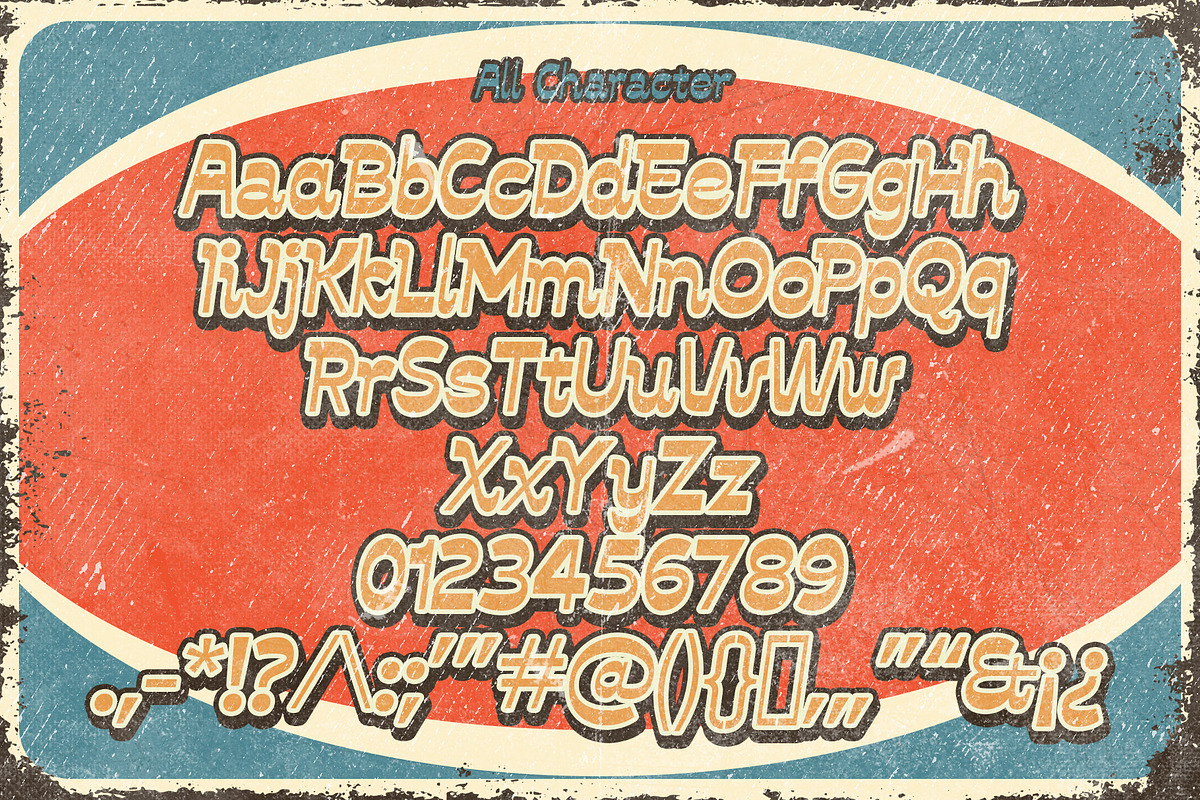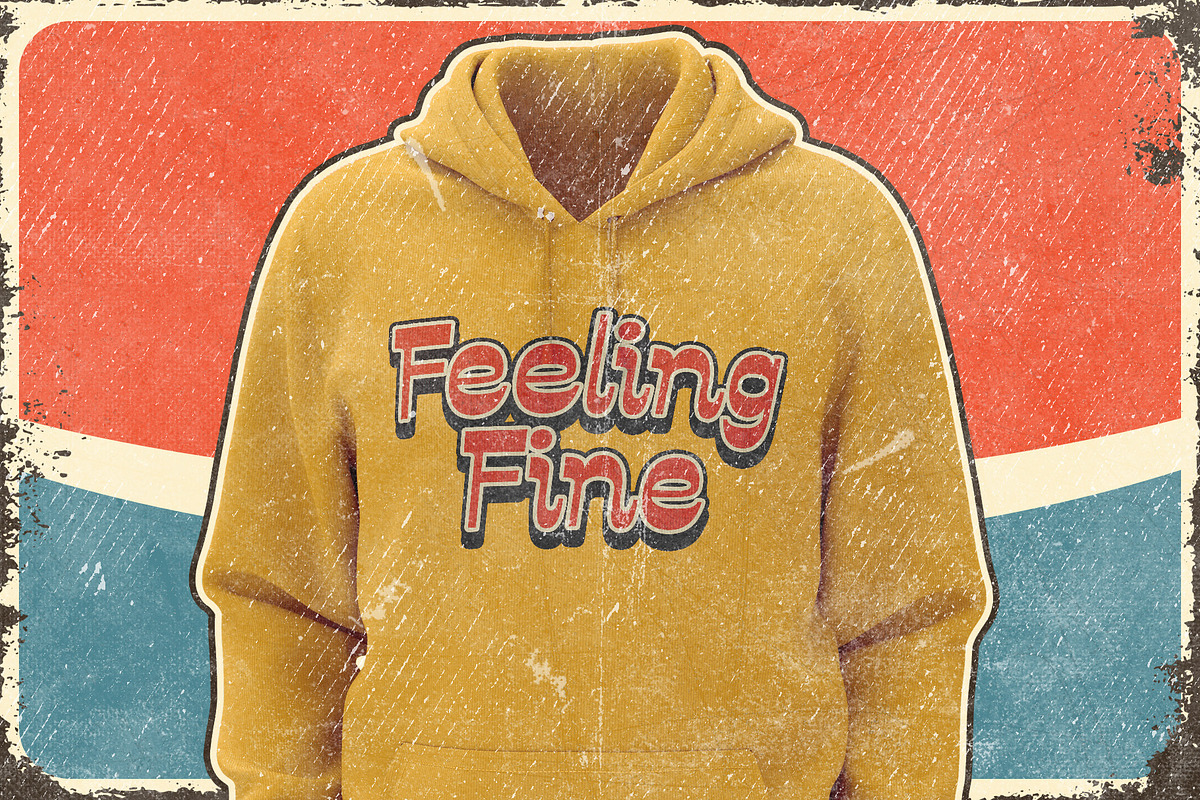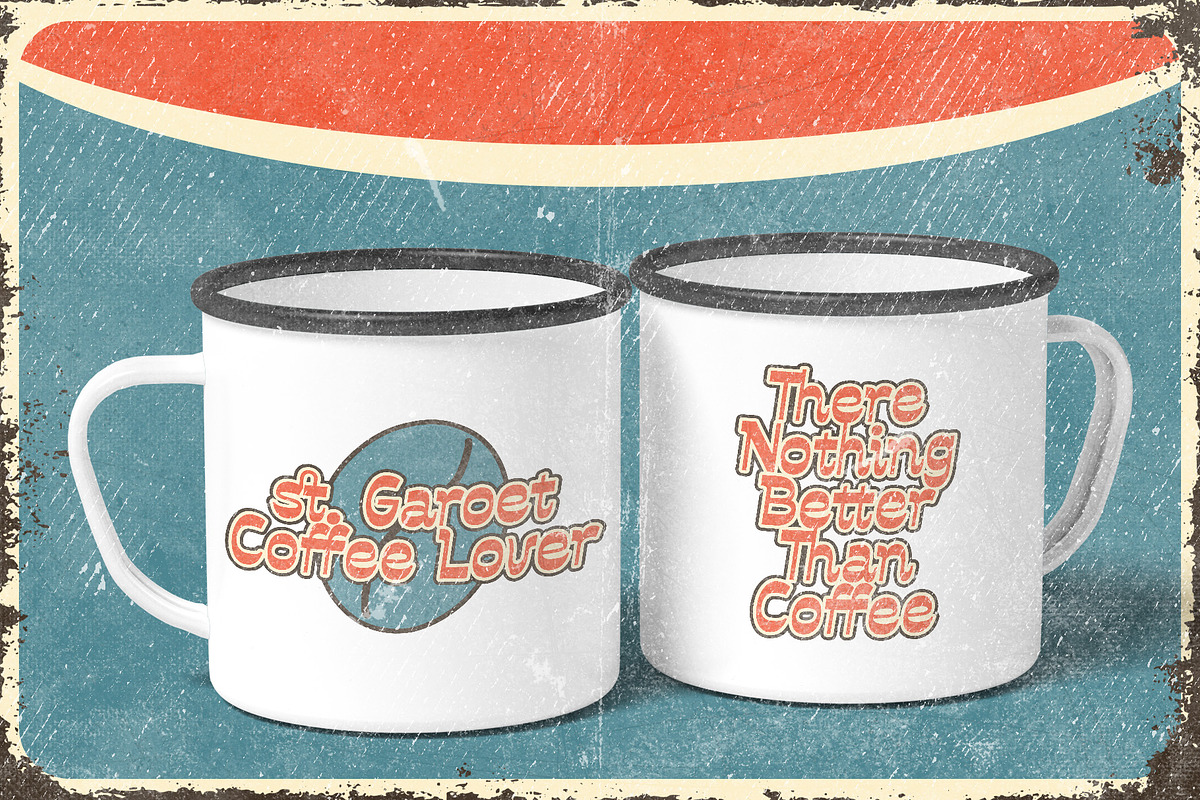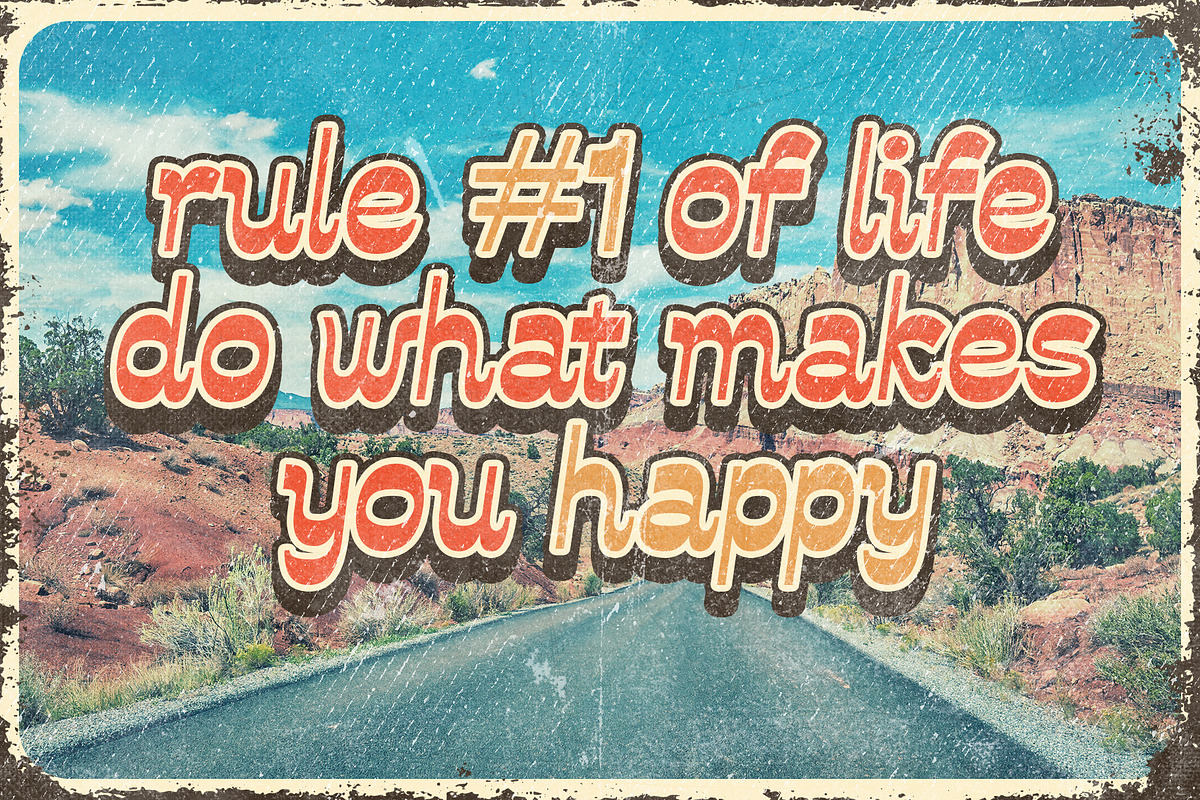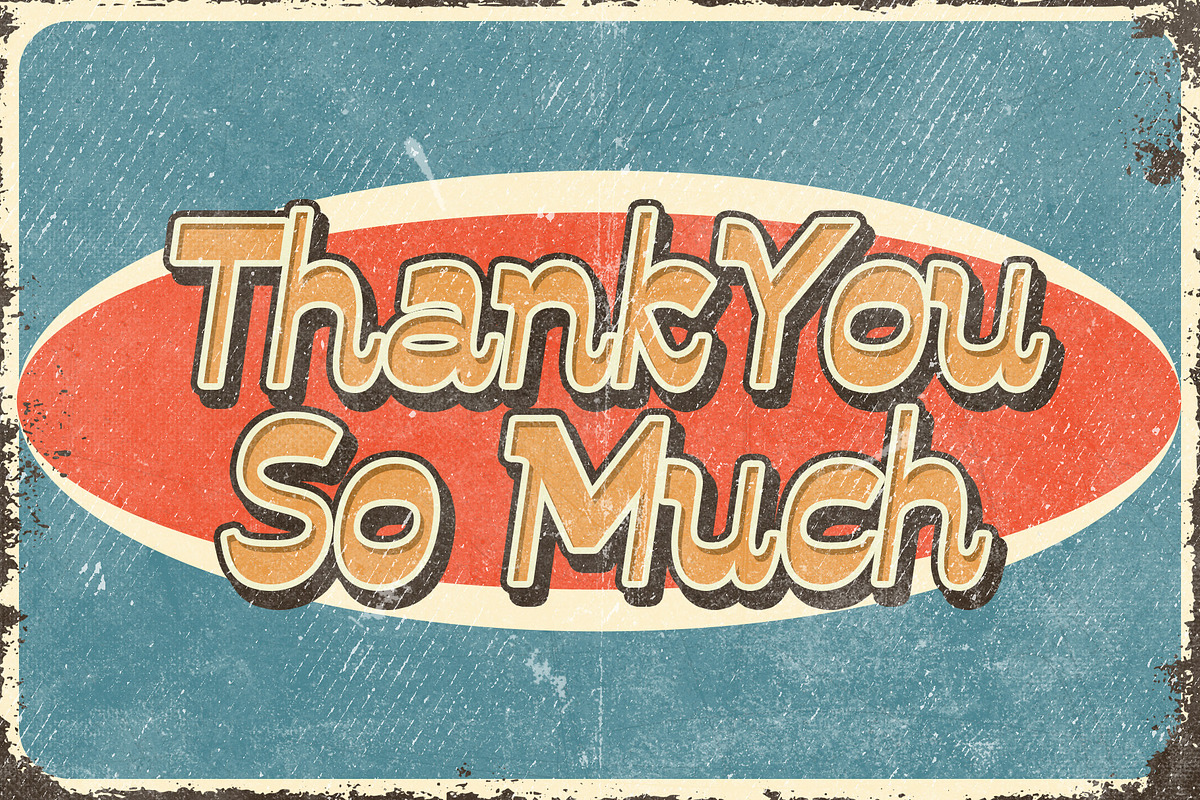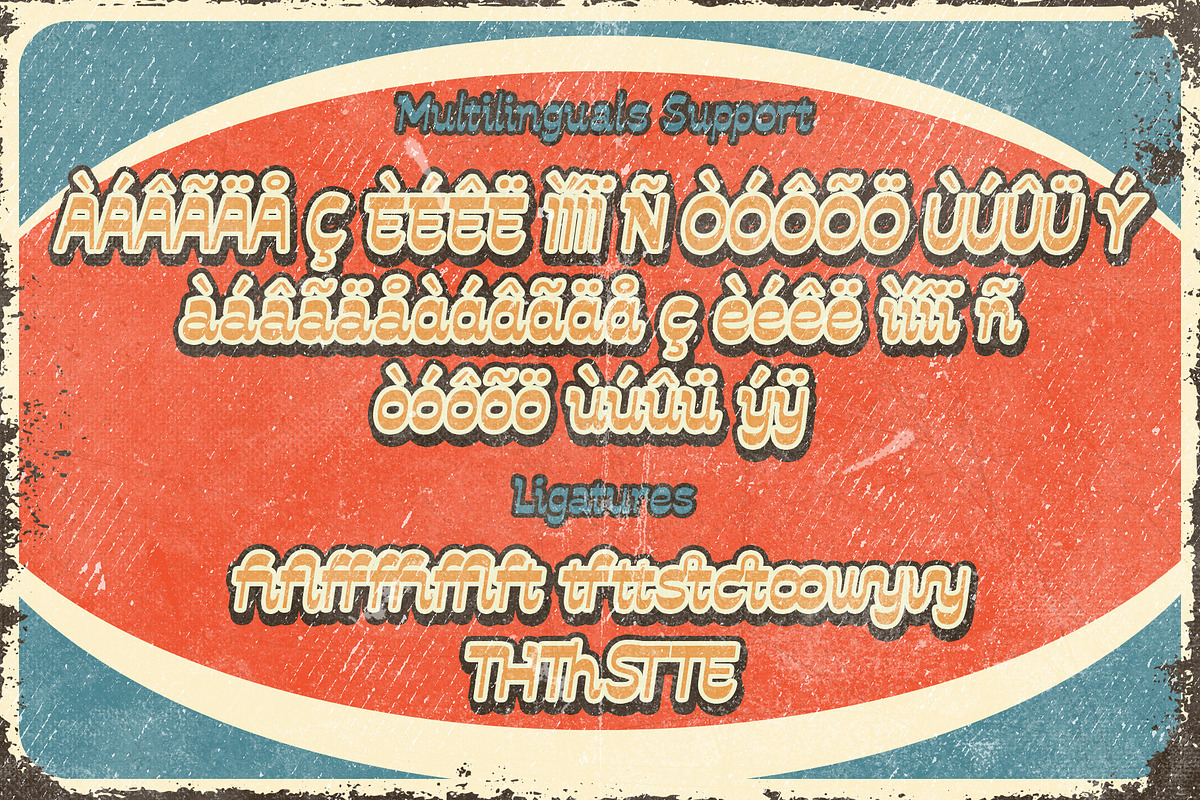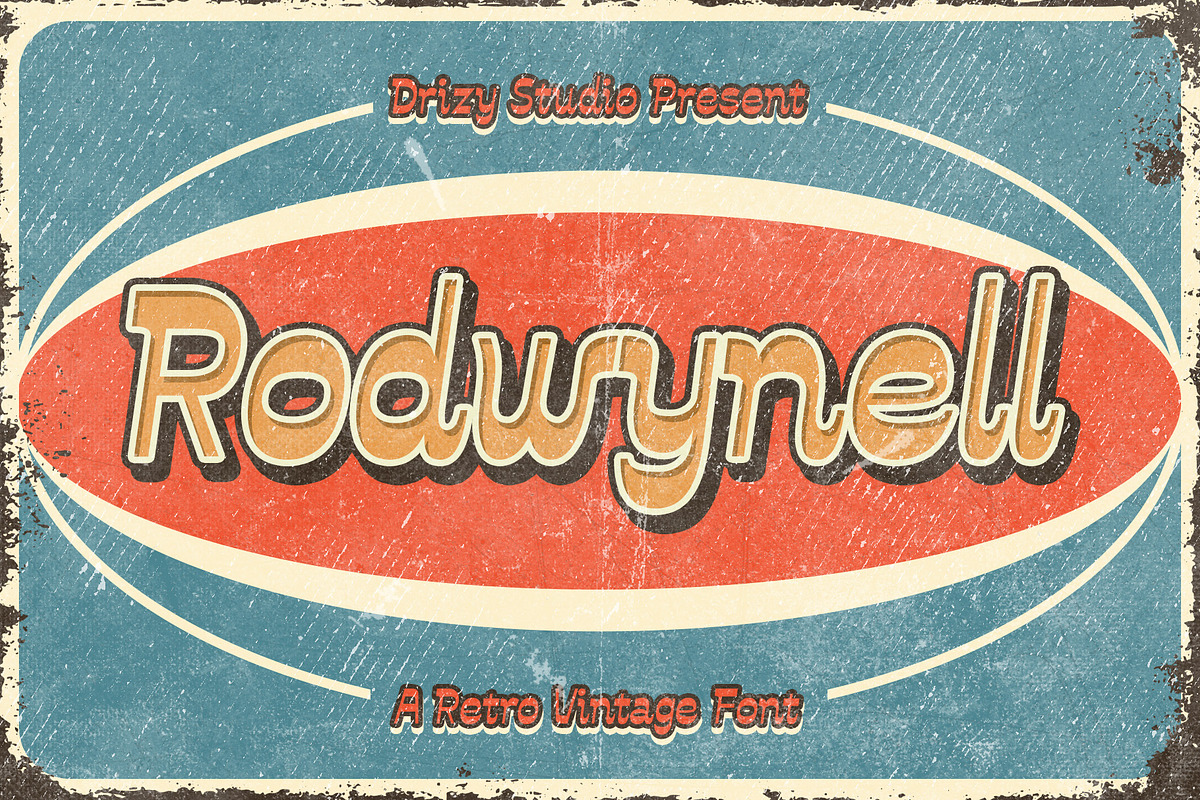
Rodwynell
Introducing Rodwynell! a beautiful A Retro Vintage Display Font from drizy! This is a unique display typeface perfect for gorgeous logos & titles.
Rodwynell Features :
- Multilanguange